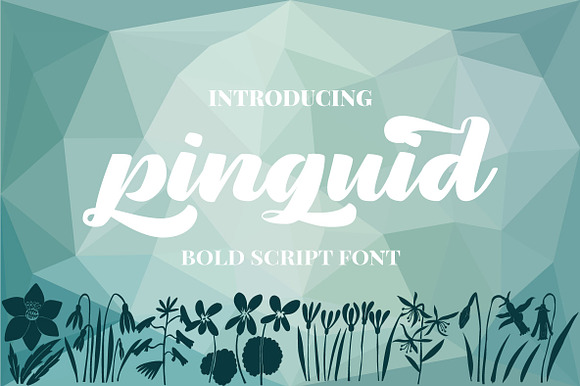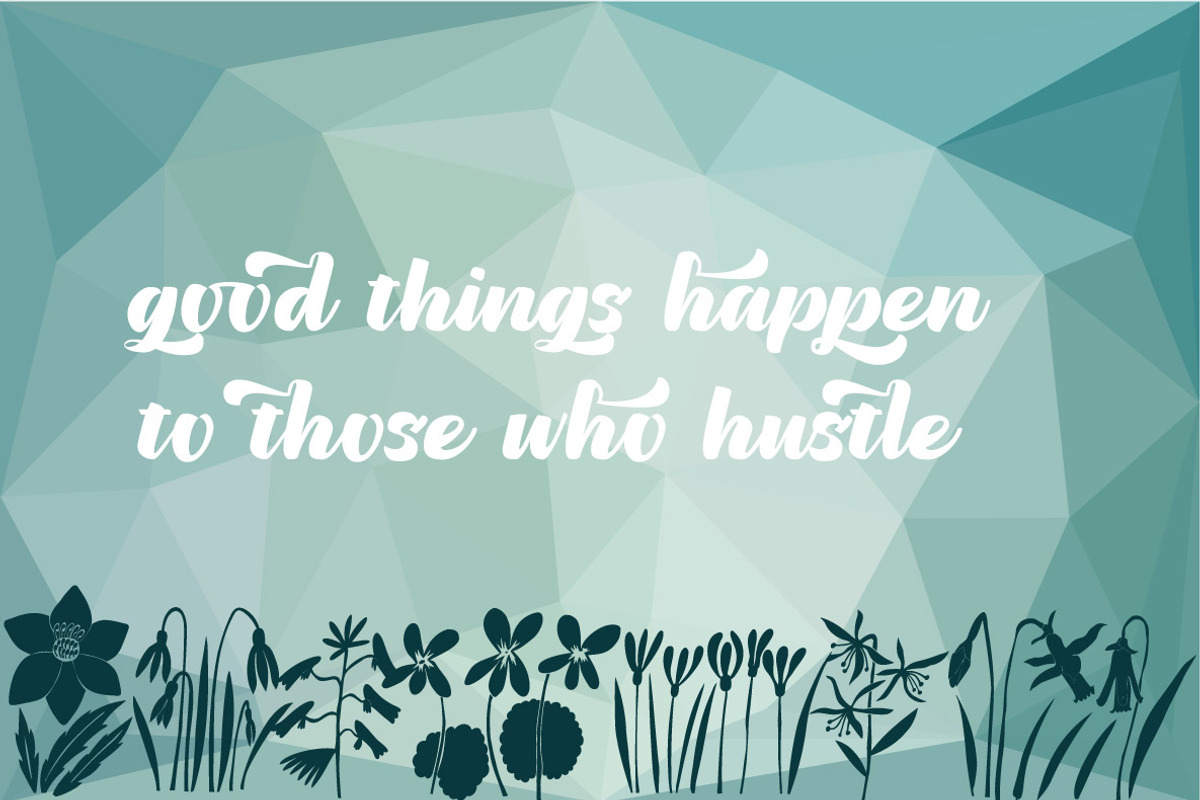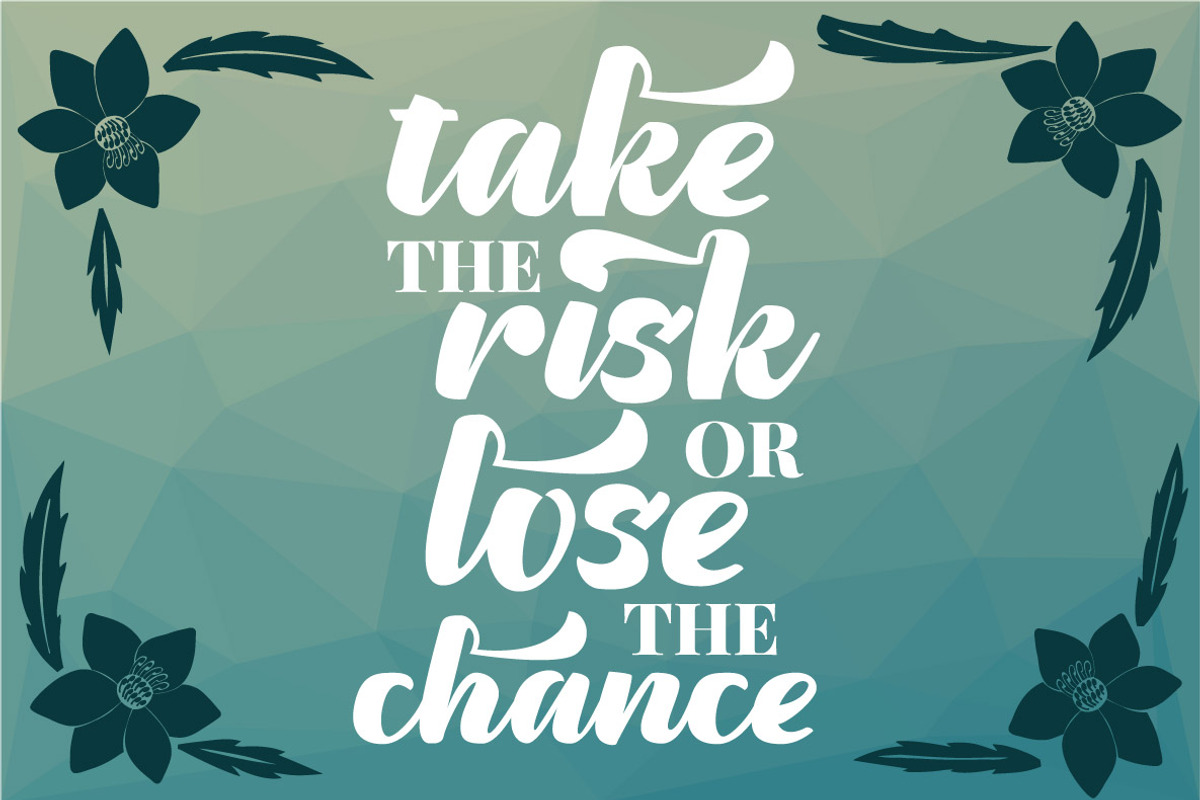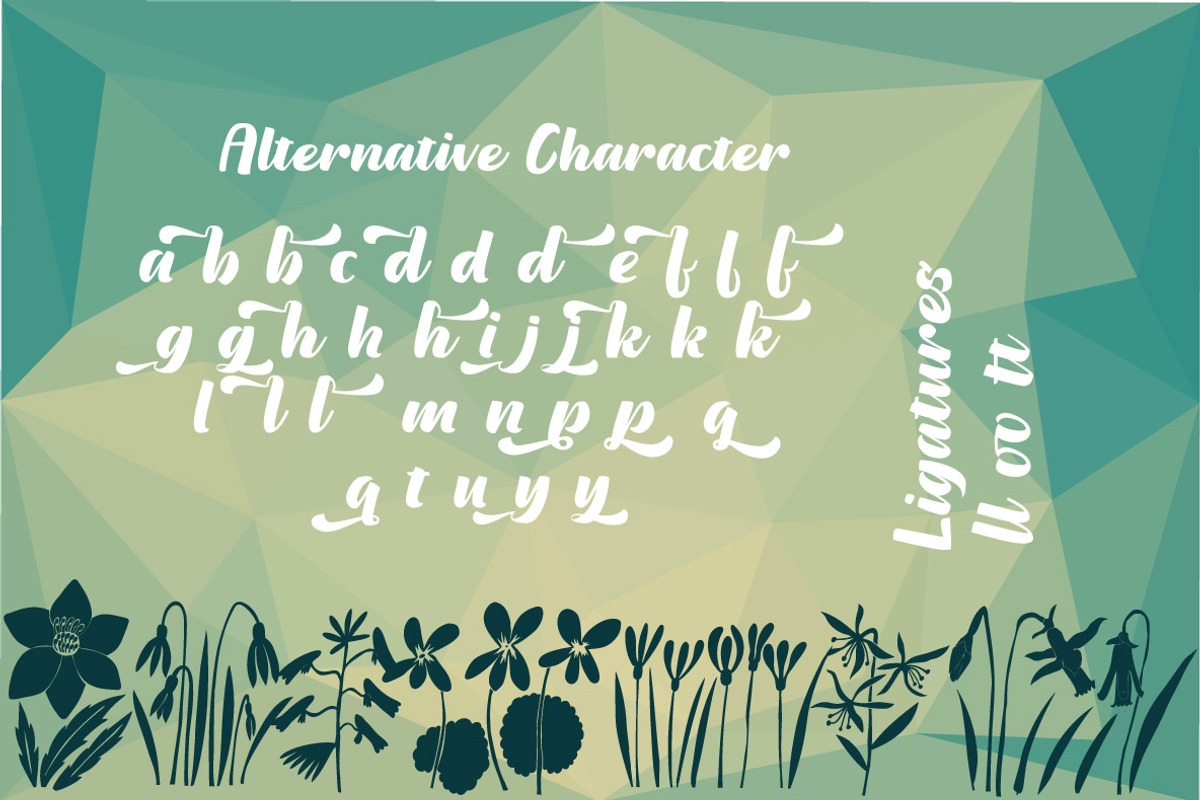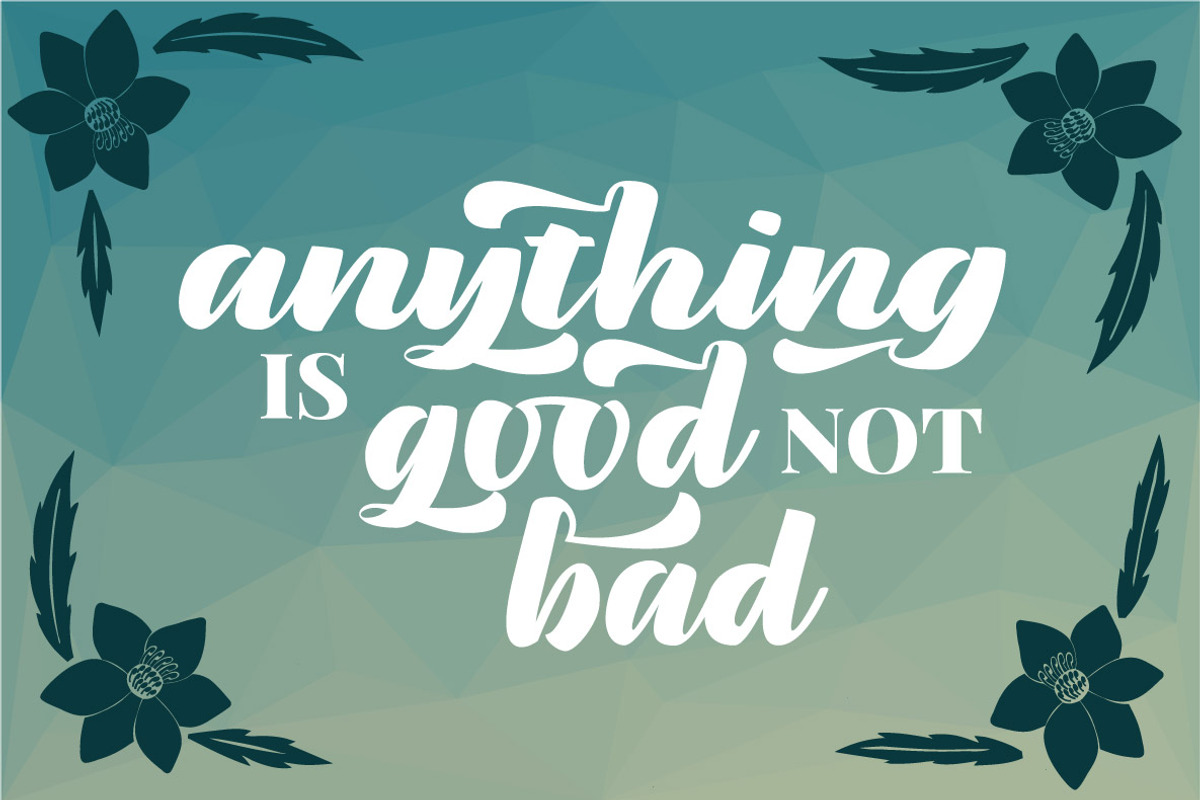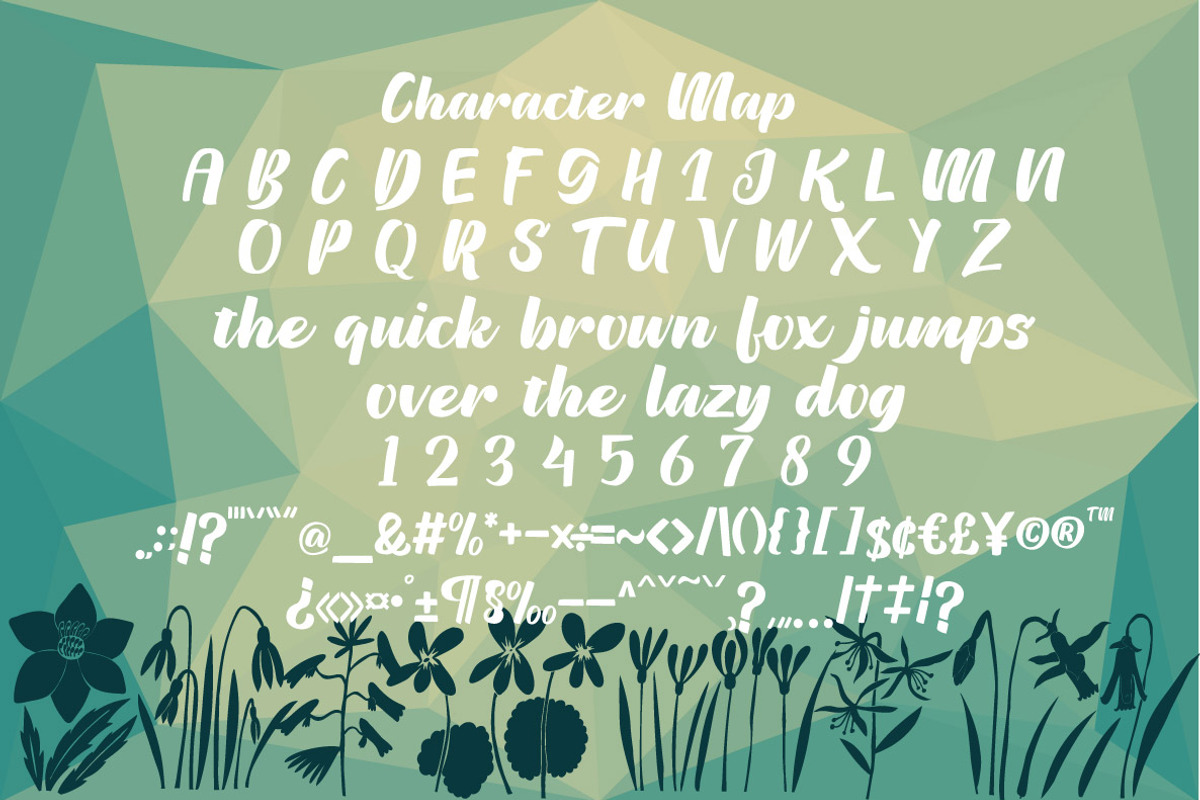
Pinguid | Bold Script Fonts
introducing, our last font, called pinguid
pinguid is brush font made form brush crafted in paper and trace with carefully,
This font will make your design look elegant, natural and stylish. You can use this font to make a logo for branding, beautiful quote design, fashion design, product display design, wedding invitation, or for an authentic signature.
- Stylistic alternate & ligature